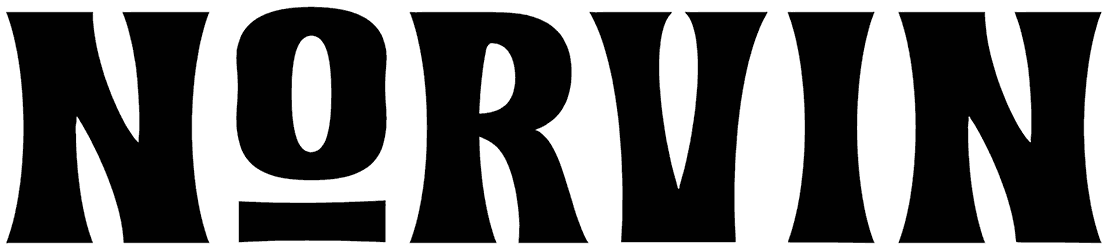
Norvin Font
Norvin font, vibrant mood takes us back in time and reminds us of the 80s. With its extensive and bold shapes, this retro font induces a sense of excitement that evokes a sense of lust in the viewer.
So if you still need to choose a font for writing behind your counter or are looking for an eye-catching font for ordering signs and announcements, take a trip down memory lane with Norvin and let the past shine in the future.